Choosing the perfect font for your YouTube thumbnail is crucial to grab attention and drive clicks. With countless options available, it can be overwhelming to find a font that is not only visually appealing but also easy to read and impactful. But don’t worry, we’ve got you covered! So, take a look at our handpicked selection and create a strong first impression for your video! Each of these fonts has unique features that make them suitable for YouTube thumbnails, depending on the message and tone you want to convey. Their readability, aesthetic appeal, and emotional impact are what make them top picks for designers.
1. Anton
Why it is best YouTube Thumbnail font: This is a sans-serif typeface known for its ultra-bold and condensed style, making it exceptionally impactful for eye-catching titles in thumbnails. It’s perfect for conveying strong messages or emphasizing keywords that need to stand out.
2. Arvo
Why it is best YouTube Thumbnail font: Arvo is a geometric slab-serif with a very professional and clean appearance. It works well in thumbnails because it combines readability with character, providing a subtle flair that enhances the appeal without overpowering the visuals.
3. Bebas Neue
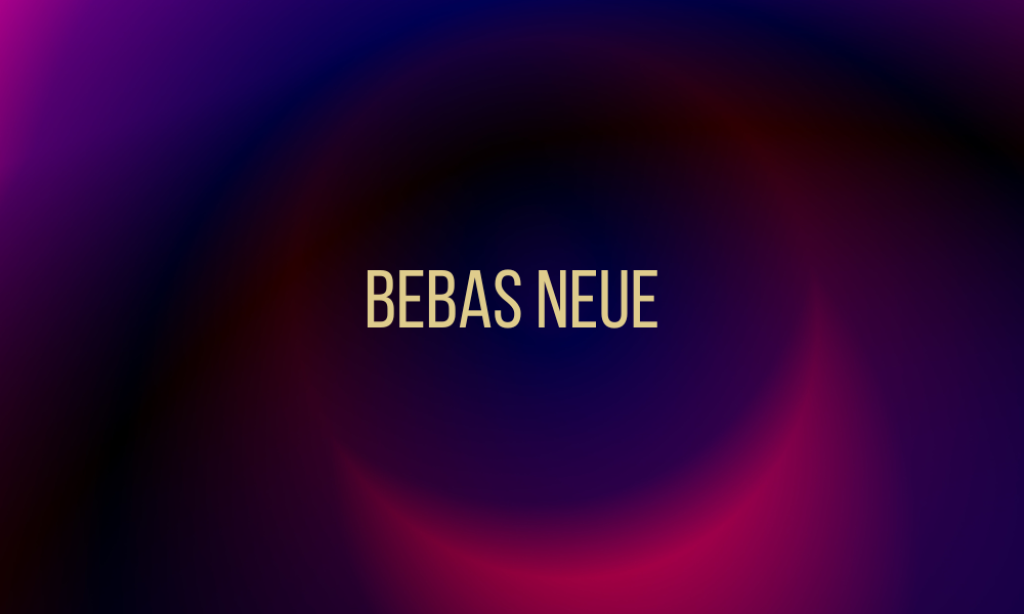
Why it is best YouTube Thumbnail font: A popular sans-serif font, Bebas Neue is characterized by its tall and narrow letters, offering a modern and clean look that is highly readable even from a thumbnail size. It’s ideal for a sleek, contemporary vibe.
4. Cinzel
Why it is best YouTube Thumbnail font: Cinzel draws inspiration from classical proportions but with a contemporary twist, making it ideal for thumbnails that need a touch of elegance and tradition. It’s great for topics related to history, luxury, or sophistication.
5. Gloria Hallelujah
Why it is best YouTube Thumbnail font: With its handwritten, casual style, Gloria Hallelujah adds a personal and friendly touch to thumbnails. It’s perfect for less formal content and can help make a thumbnail appear more approachable and relatable.
6. Josefin Sans
Why it is best YouTube Thumbnail font: This font offers a vintage geometric style that is both elegant and modern. It’s versatile for various themes and is particularly effective for fashion or lifestyle video thumbnails due to its stylish finish.
7. Lato
Why it is best YouTube Thumbnail font: Lato is known for its warmth and clarity, which makes it incredibly versatile. Its semi-rounded details of letters ensure readability at small sizes, making it a solid choice for any YouTube thumbnail.
8. League Spartan
Why it is best YouTube Thumbnail font: A bold, modern, sans-serif with a strong character, League Spartan is assertive without being overwhelming. It’s perfect for dynamic content that needs to convey power and innovation.
9. Lobster
Why it is best YouTube Thumbnail font: Lobster is a popular script font that features lovely and bold cursive lettering. It stands out for creative or entertaining content, adding a playful and engaging element to thumbnails.
10. Merriweather
Why it is best YouTube Thumbnail font: This serif font is designed to be highly readable on screens. Its robust style is comforting to the eye, and it lends an air of credibility and seriousness to any thumbnail.
11. Montserrat
Why it is best YouTube Thumbnail font: With its geometric and urban style, Montserrat is incredibly popular for digital media. It’s excellent for creating bold, attention-grabbing titles that remain clean and easy to read.
12. Nunito
Why it is best YouTube Thumbnail font: A well-rounded font that combines readability with a friendly, open tone. It’s great for thumbnails that aim to feel informal and welcoming.
13. Oswald
Why it is best YouTube Thumbnail font: Adapted for digital use from classic sans-serif fonts, Oswald is excellent for impactful headlines because of its condensed form which allows for big and bold uses without taking up too much space.
14. Permanent Marker
Why it is best YouTube Thumbnail font: Mimics the look of a marker pen, adding an informal and spontaneous feel to thumbnails. This font is ideal for thumbnails that benefit from a handmade or “in the moment” vibe.
15. Playfair Display
Why it is best YouTube Thumbnail font: With its high contrast letterforms and distinctive style, Playfair Display adds a layer of sophistication and boldness, suitable for serious or dramatic content.
16. Poppins
Why it is best YouTube Thumbnail font: Known for its geometric shapes, Poppins is clean and contemporary, making it ideal for thumbnails that require a touch of modernity and simplicity.
17. Raleway
Why it is best YouTube Thumbnail font: Raleway is an elegant sans-serif with a very clean, attractive finish. It works well in both titles and subtitles, providing versatility and excellent readability.
18. Sigmar One
Why it is best YouTube Thumbnail font: It’s a heavy, fat font – bold and attention-grabbing. Ideal for making a strong impression in a playful and engaging way.
19. Titillium Web
Why it is best YouTube Thumbnail font: Has a professional and futuristic feel, which makes it suitable for thumbnails related to technology, education, or business.
20. Ultra
Why it is best YouTube Thumbnail font: As the name suggests, Ultra is an ultra-bold serif font that stands out due to its thick, blocky letterforms. Perfect for making short titles pop in a visually crowded space like YouTube.